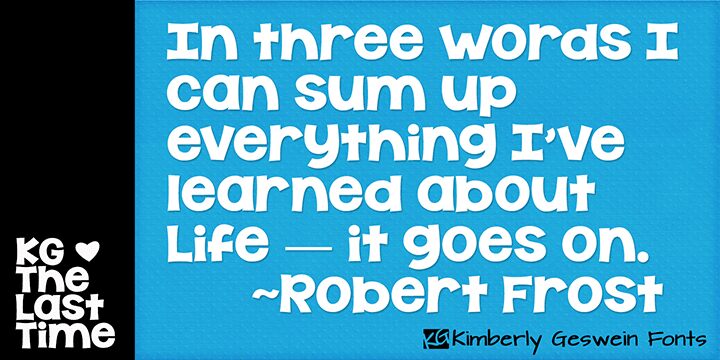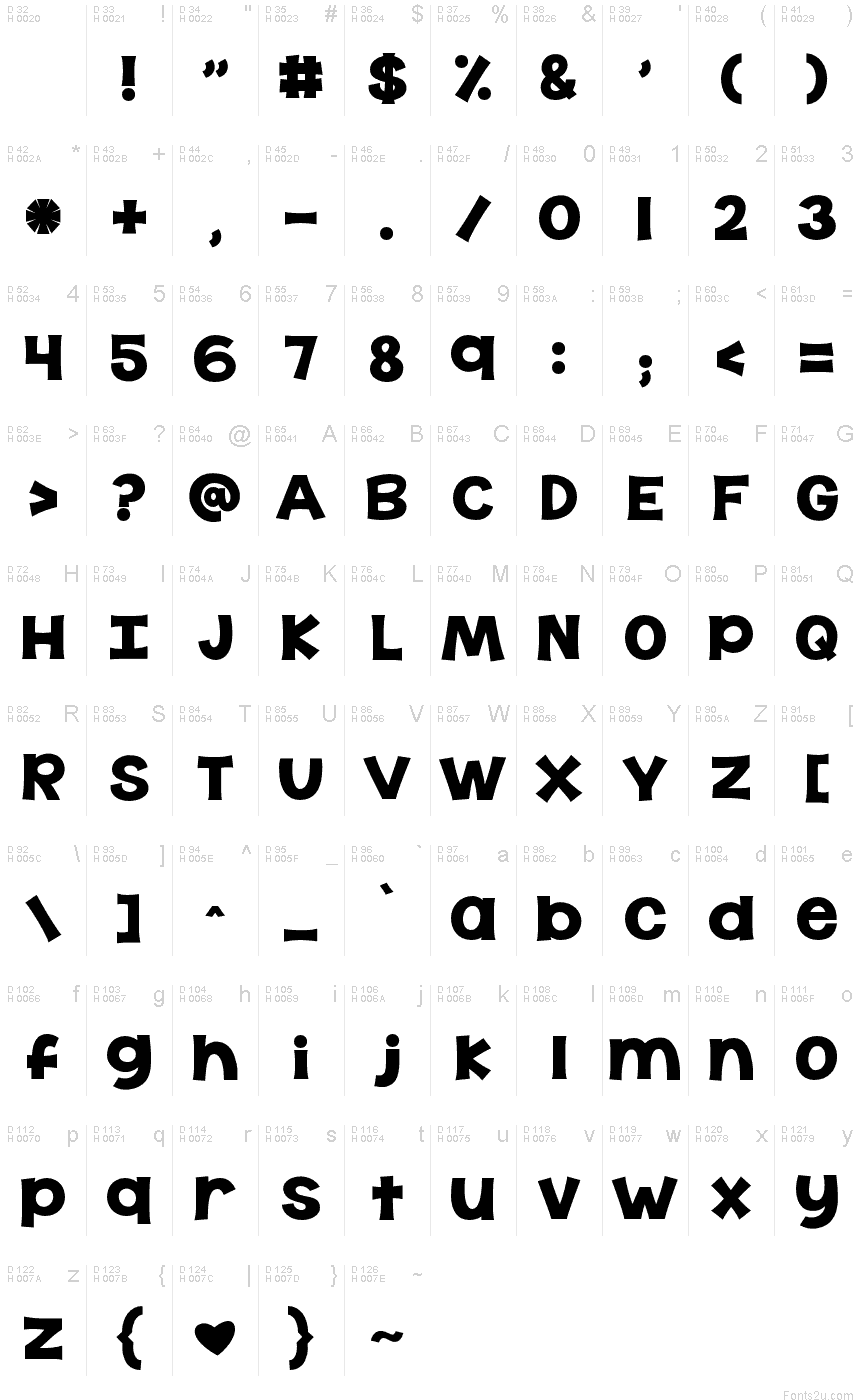
KG The Last Time by Kimberly Geswein is a free comic display font with broad, uneven letters and a lively cut-paper silhouette. The shapes look loosely drawn and nudged into place by hand.
It can turn lettering into a playful illustrated element for children's book covers, snack packaging, party posters, and classroom materials. Uneven contours echo simple collage shapes and cartoon artwork, so the words become part of the picture rather than neutral captions.